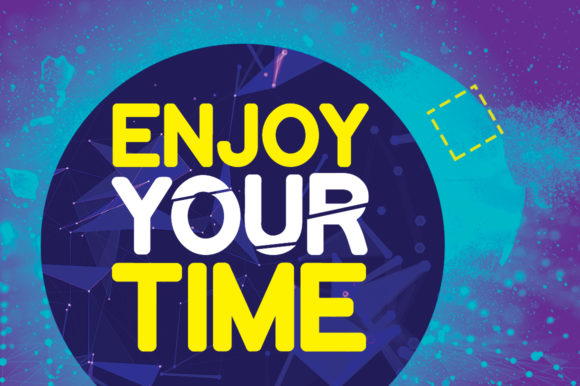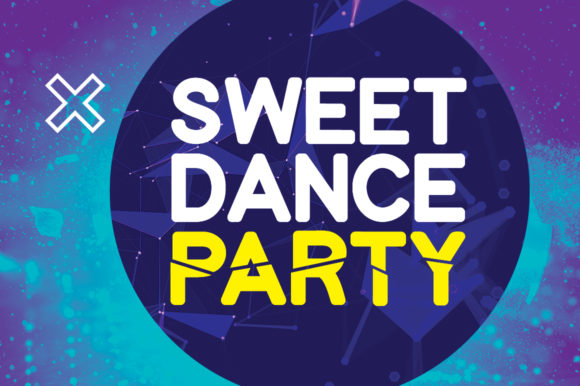
Get Ready to Party with Your Designs
Have you ever been in a creative flow, sipping coffee, and surrounded by colorful inspirations? The ideas just start pouring in, and you can’t wait to bring them to life. For designers, those magical moments are what make it all worth it. And now, we have a brand new addition to make those moments even more special: the Club Party Font.
This fun display font is all about spreading joy and energy through its sweet and cheerful vibe. Its purpose is to help designers add a pop of personality to their projects, whether it’s a social media campaign, a music festival poster, or a playful website. With the Club Party Font, you’ll be able to create designs that truly reflect the excitement and enthusiasm of your brand.
Key Features of “Club Party Font”
- Unique Characteristics: Distinctive, energetic, and vibrant design with a modern twist, perfect for party and event invitations, social media graphics, and promotional materials
Club Party Font Review
First off, I love the energy of this font! ✨ It’s perfect for anything related to nightlife, music, or just a party vibe. The bold lines and playful flair make it instantly recognizable as a fun, lively font. It’s great for headings, titles, or even entire paragraphs of text that need a bit of flair.
One of the things that stands out to me is the versatility of this font. ✨ It can be used for both digital and print projects, and it looks great in a variety of colors. I’ve also found it to be quite legible, even at smaller sizes.
While I love the Club Party Font, there are a few limitations to consider:
- ⚠️ Limited character set – it’s not a full-fledged font, but rather a set of pre-designed characters. This might limit its use in certain situations.
- ⚠️ Not ideal for body text – while it’s great for headings and titles, the font can be a bit overwhelming for large blocks of text.
- ⚠️ May not be suitable for formal projects – the playful vibe might not be suitable for more serious or professional projects.
Overall, I think the Club Party Font is a fun and energetic addition to any designer’s toolkit. While it has some limitations, it’s perfect for projects that need a bit of flair and personality. With a bit of careful planning, it can be a great choice for a wide range of applications.
Club Party Font: A Practical Application Guide
For the best results, use the font in bold or italic styles to emphasize key points.
For a more dramatic effect, use the font in combination with bold outlines and vibrant colors.
For a more engaging presentation, use the font in combination with animations and transitions.
The Club Party Font is ideal for:
Music festival and event promotions
Dance club and nightlife advertising
Party invitations and social media graphics
Any design project that requires a fun and energetic vibe.
Dancing Script is a classic script font that’s perfect for creating elegant and sophisticated designs. It has a similar flowing feel to Club Party Font but with a more traditional and timeless look. Use Dancing Script for designs that require a touch of elegance and sophistication.